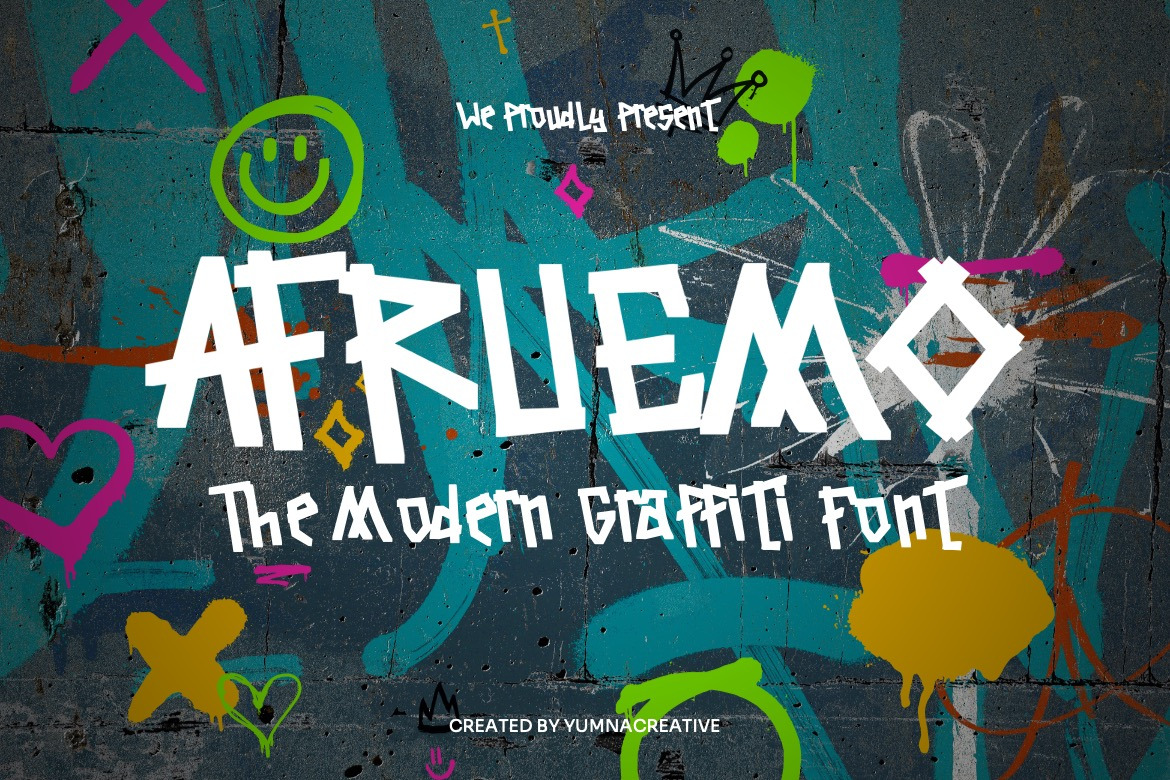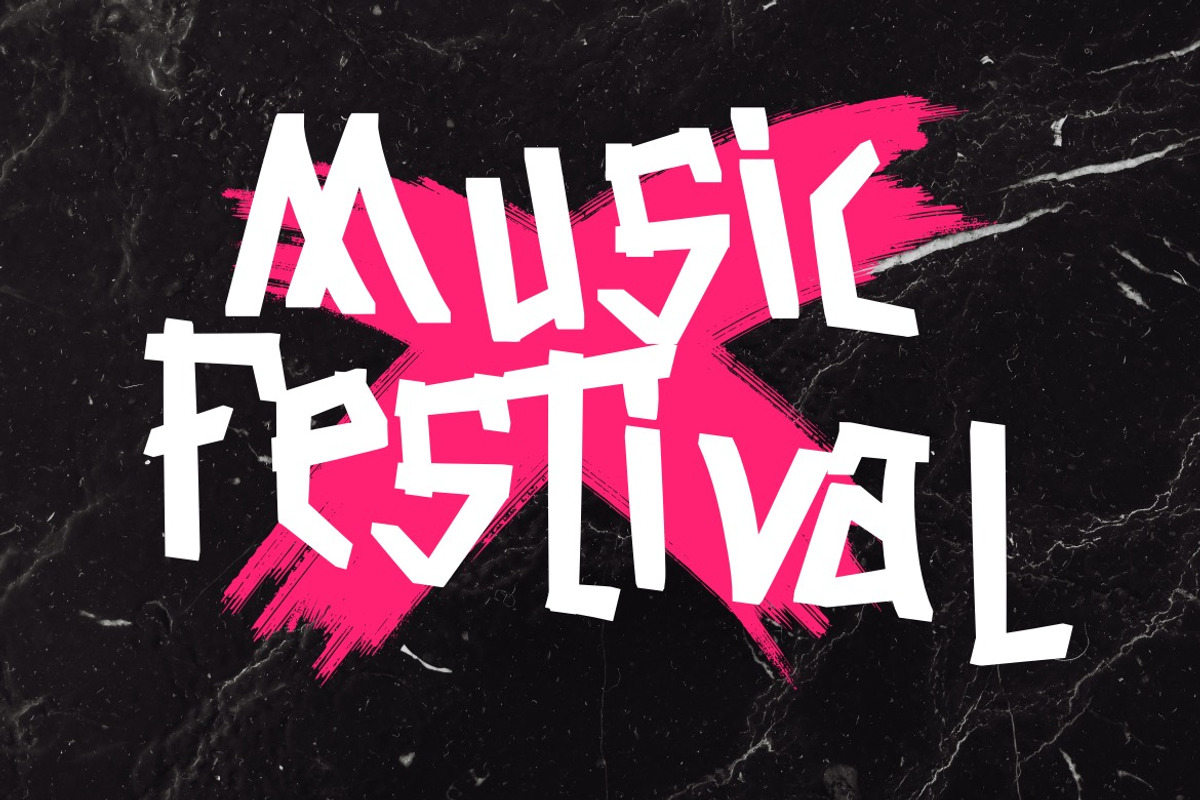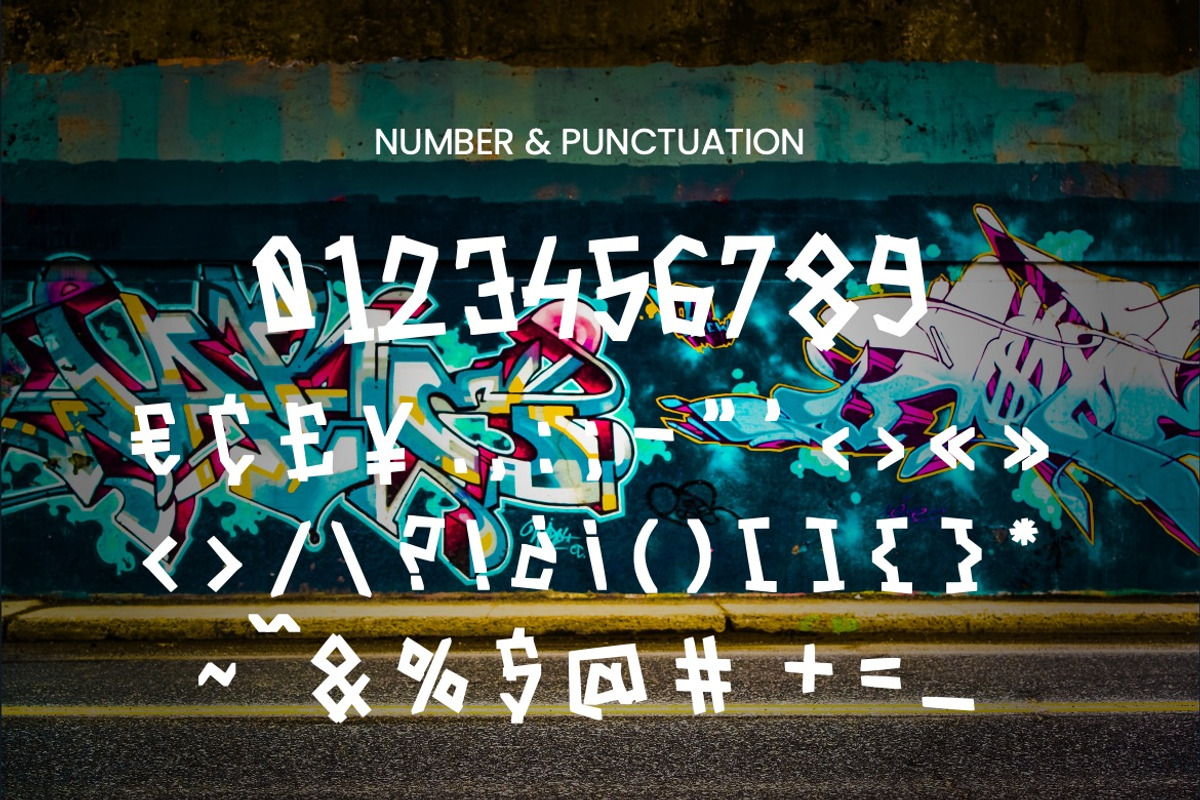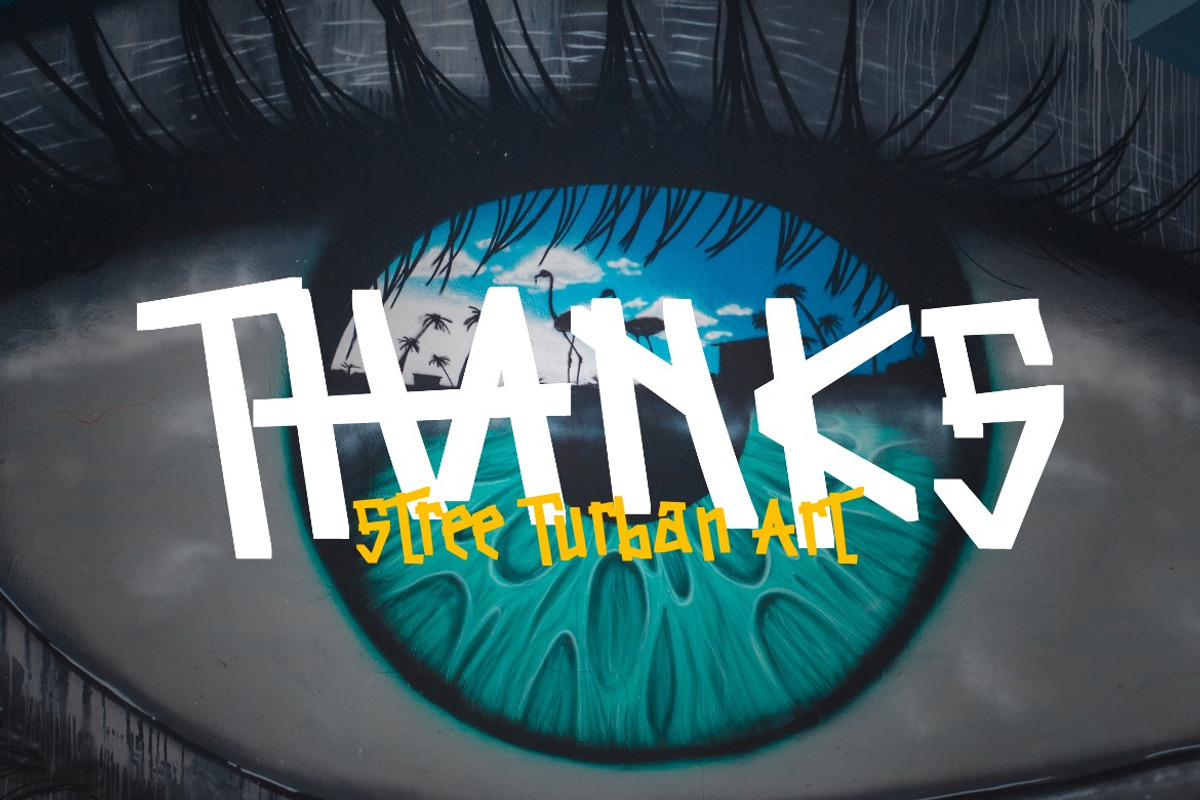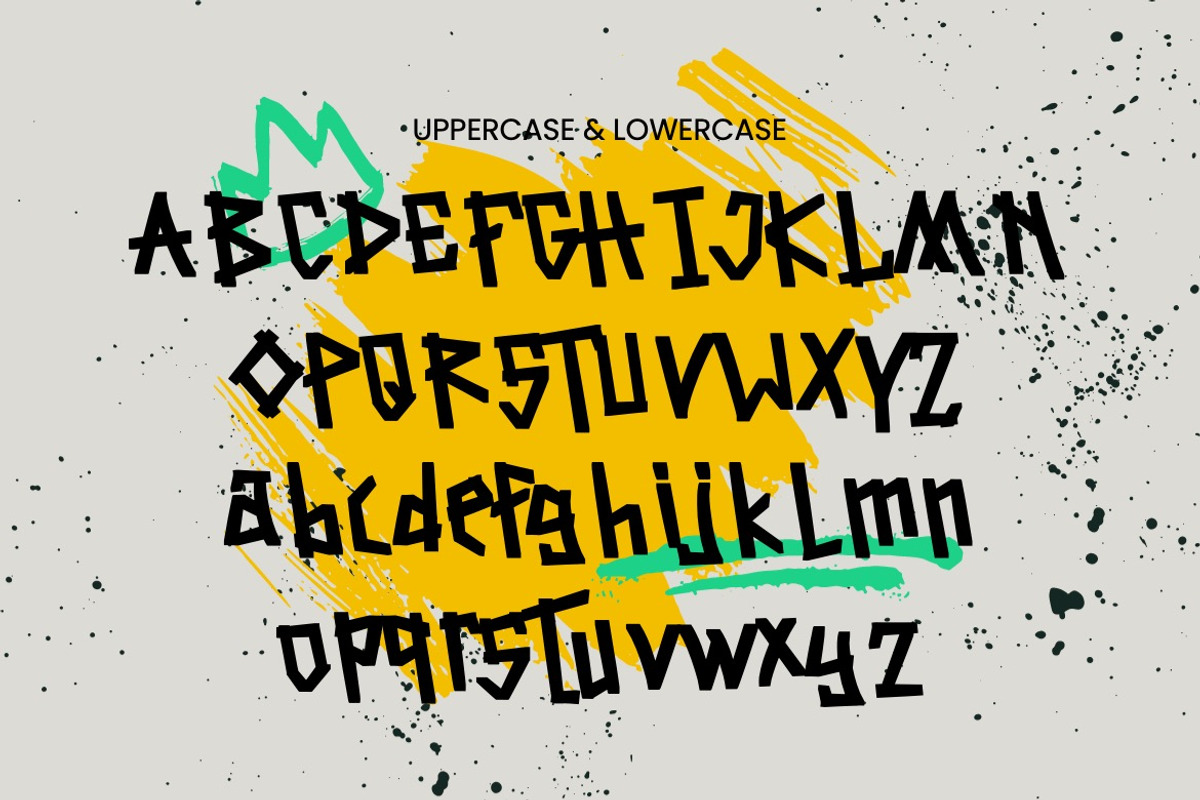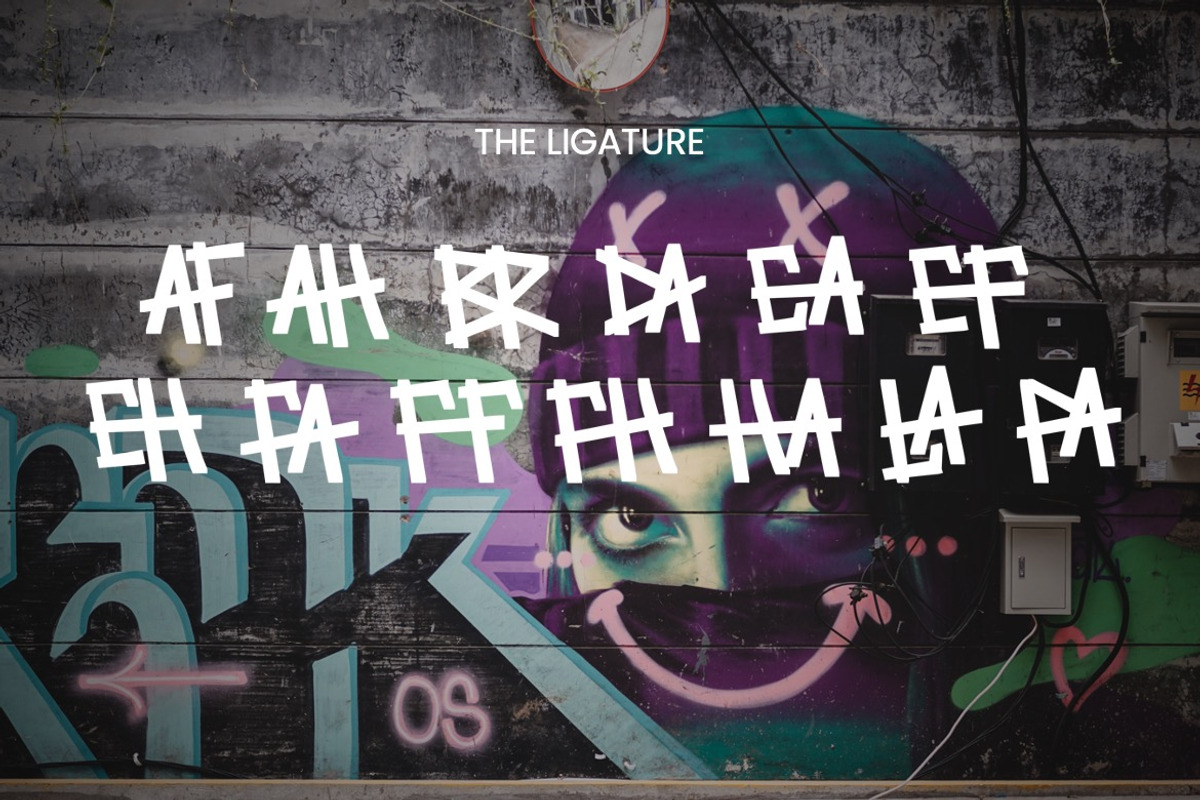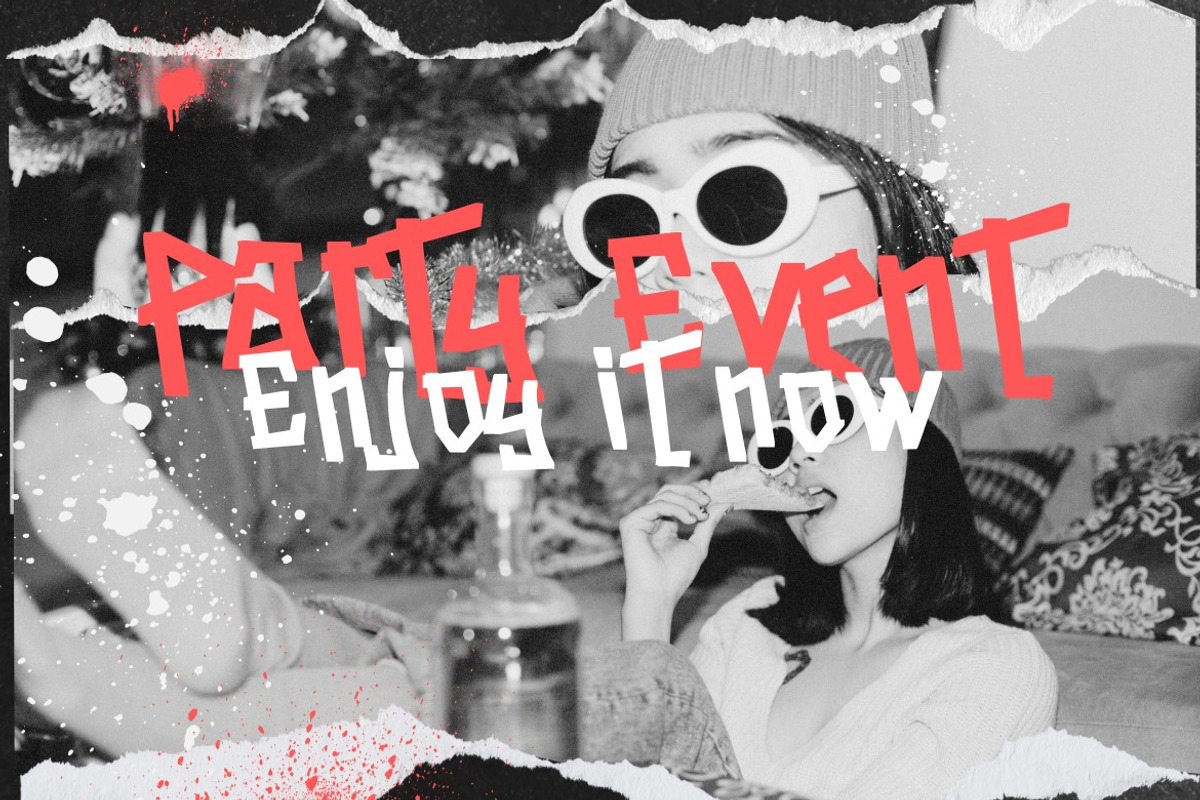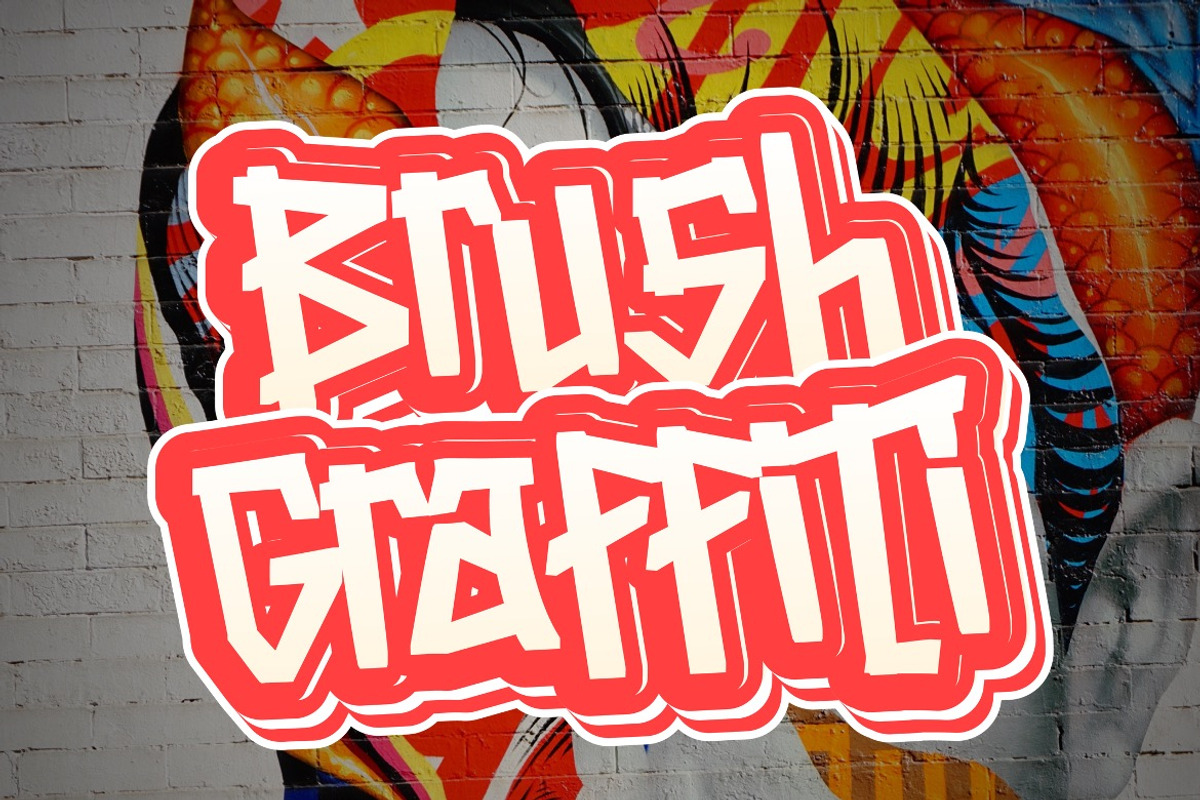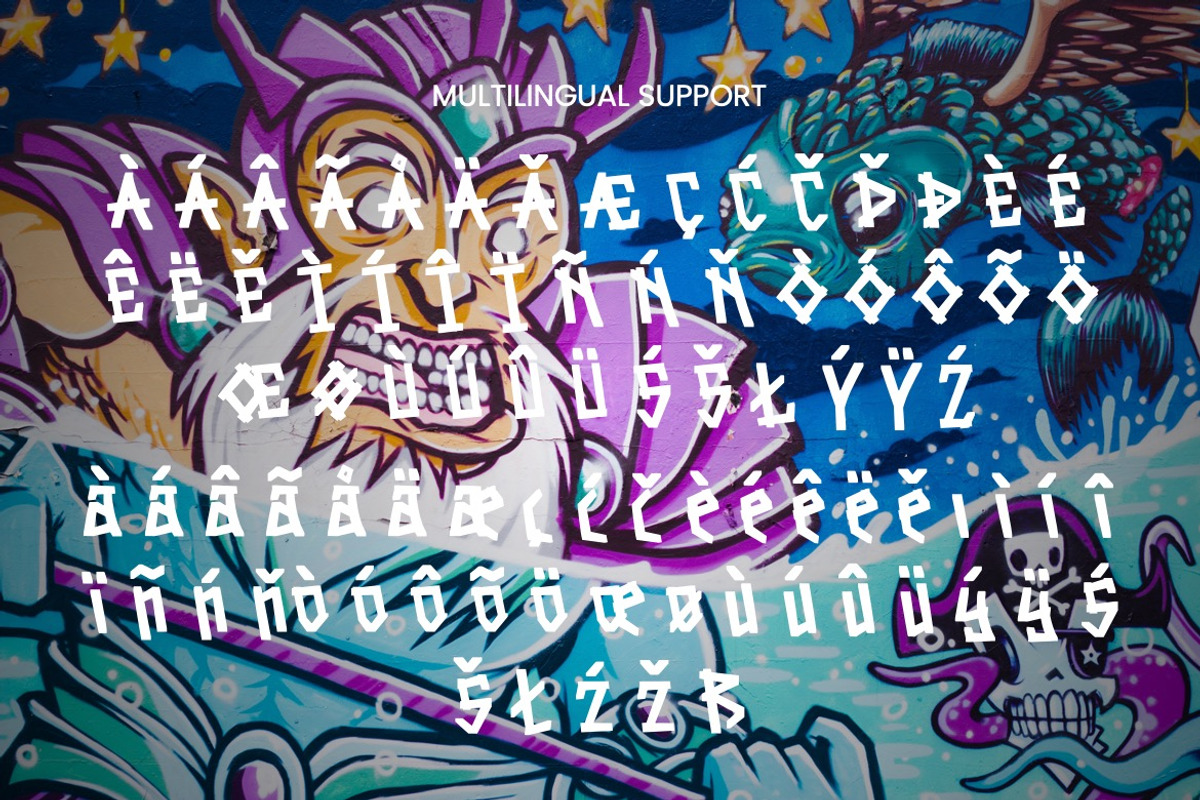
Afruemo - Modern Graffiti Font
Introducing Afruemo - Modern Graffiti Font
This Font is a delicate, elegant and flowing handwritten font. It has beautiful and well as a unique blend of ligatures a letter, so that the authors compose it with a and little swirly embedding, so that a modern font is formed and ready to make a statement by adding elegant and unique flair to your next design project. Add it to your most creative ideas and notice how it makes them come alive!
• Uppercase, Lowercase, Numbering &Punctuation